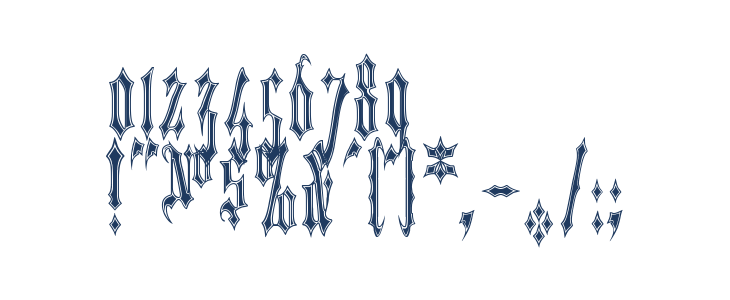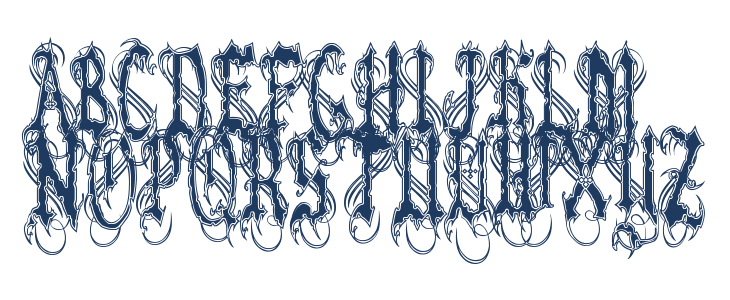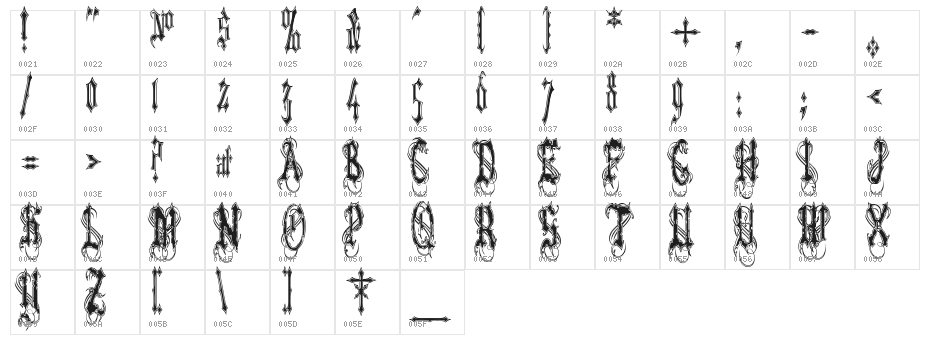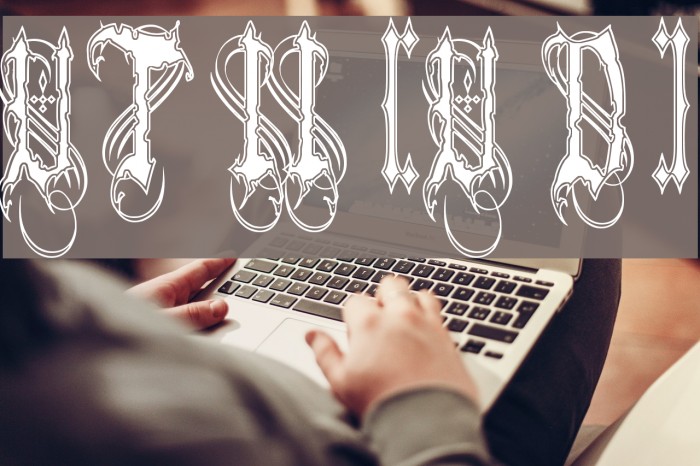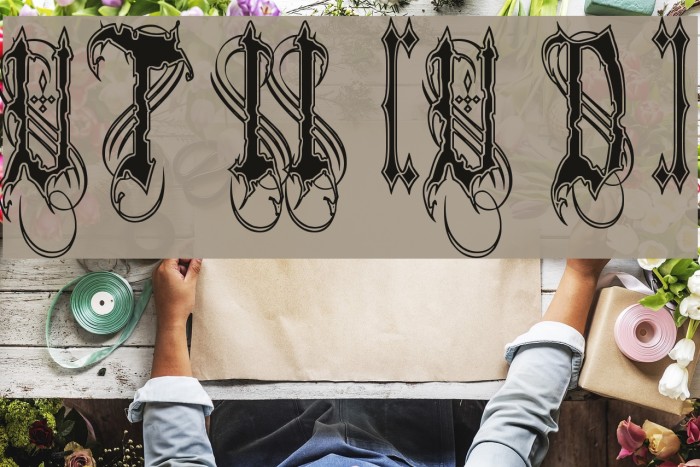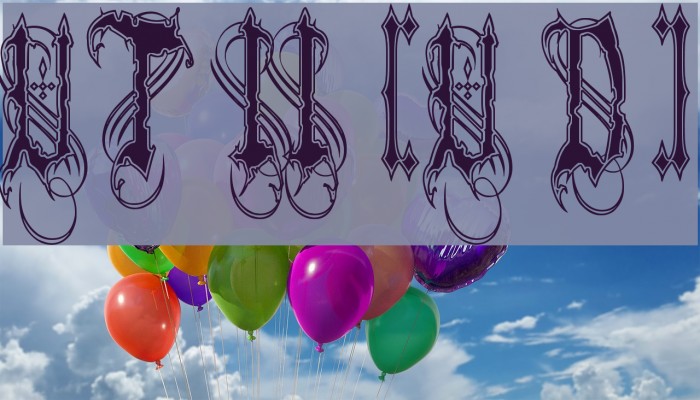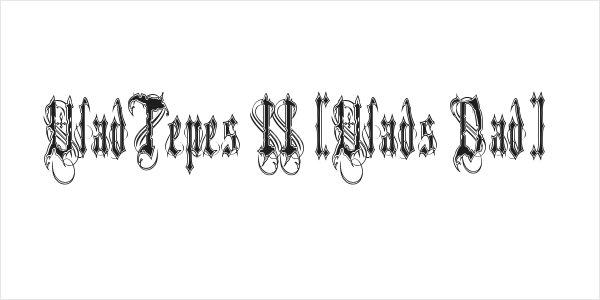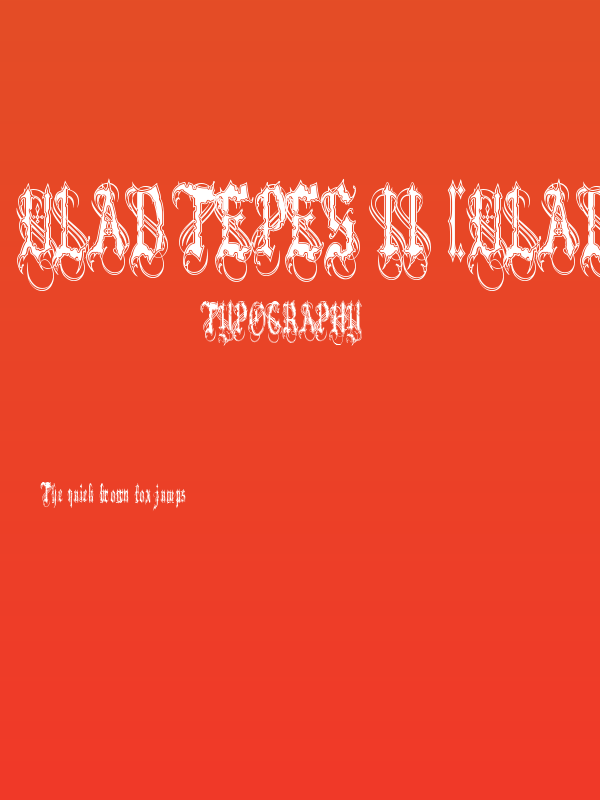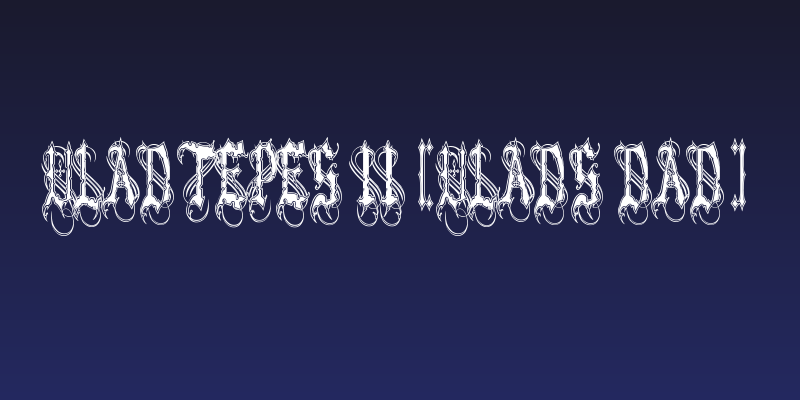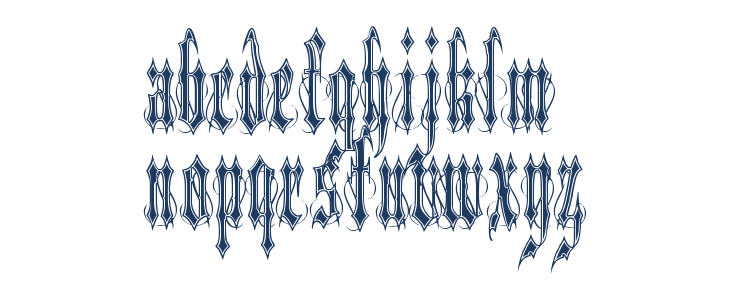
VladTepes II [Vlads Dad] Font
VladTepes II [Vlads Dad] Description
This font is a striking example of Blackletter style, characterized by its intricate and ornate design. Each character is adorned with elaborate flourishes and sharp, angular lines that evoke a sense of historical elegance and gothic aesthetics. The uppercase letters are particularly bold and commanding, while the lowercase letters maintain a consistent style with slightly more subtle detailing. The numbers and special characters are equally ornate, ensuring a cohesive look across all elements. This font's dramatic appearance makes it ideal for projects that require a touch of medieval or vintage flair.
| Proposed Projects | Ideal for historical-themed designs, gothic event invitations, book covers, and decorative posters. |